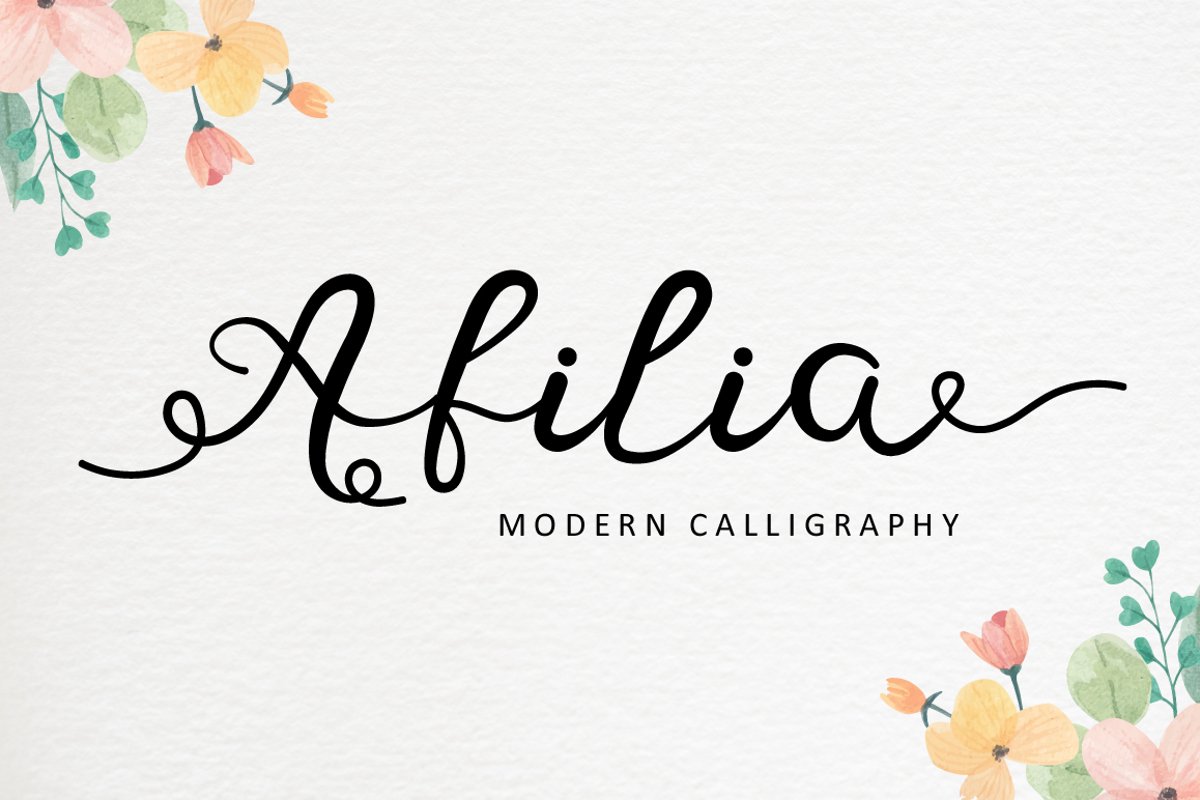
Afilia - Modern Calligraphy
Afilia is a cute and casual handwritten font with an incredibly friendly feel. It features gorgeous swashes and ligatures that make this script incredibly versatile. Whether you’re looking for fonts for Instagram or calligraphy scripts for DIY projects, Afilia will turn any creative idea into a true piece of art. The hand writing script is suitable for you who needs a typeface for headline, logotype, wedding invitations, branding, photography, packaging, advertising, watermark, etc. This typeface is comes in uppercase, lowercase, punctuations, symbols & numerals, support opentype features in Private Use Area (PUA) Unicode. Stylistic swash in lowercase, ligatures, etc. Also support multilingual.